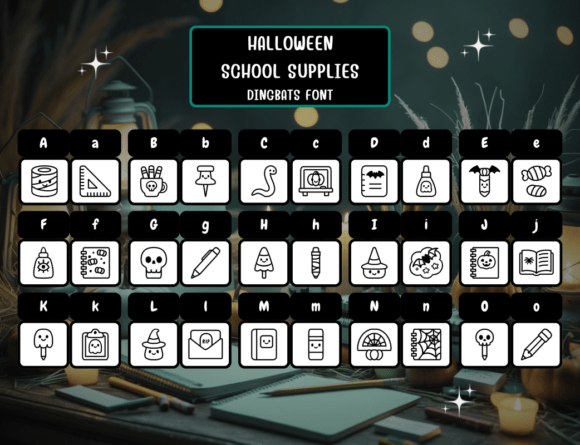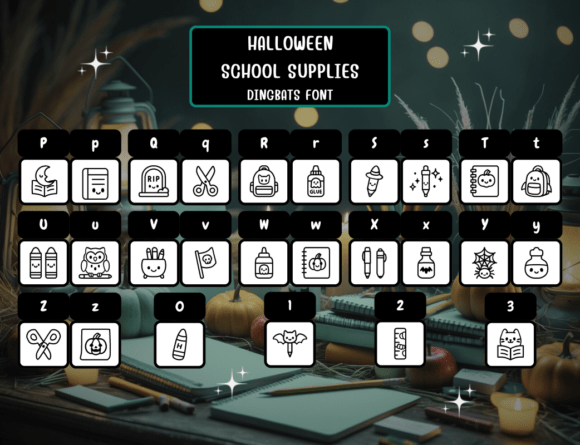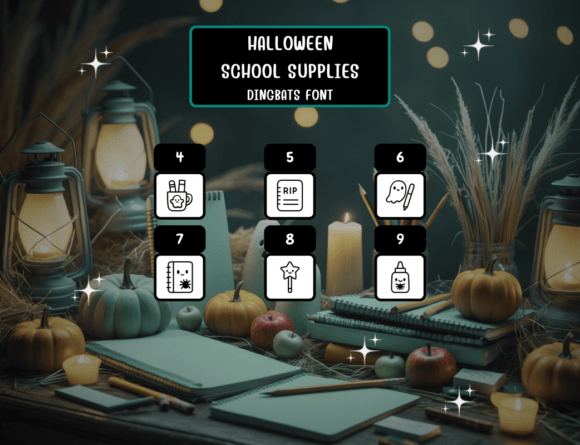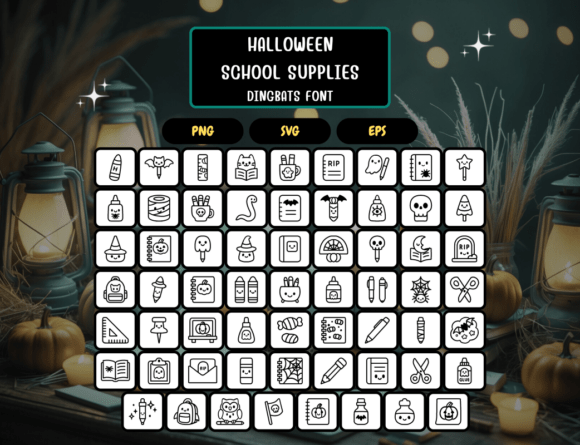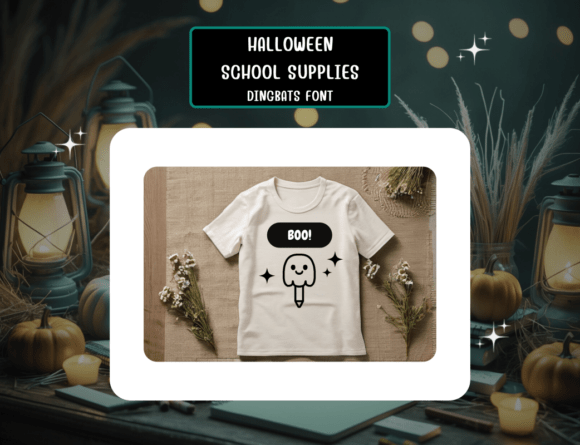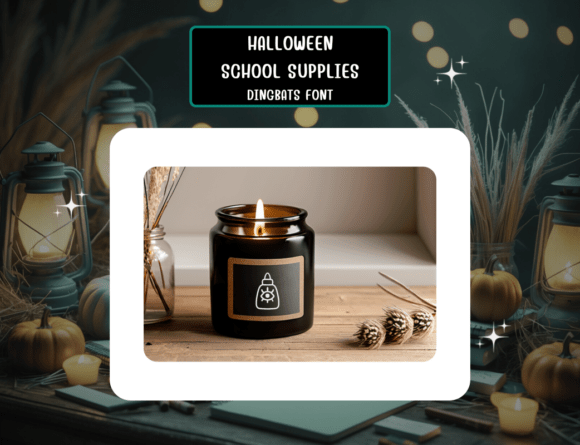
👻 Halloween School Supplies Dingbats Font 🎃: A Spooky and Whimsical Addition to Your Design Projects
Are you looking for a unique and creative way to add a touch of Halloween spirit to your design projects? Look no further than the Halloweenschoolsupplies Regular Font, a charming dingbats font that features a collection of hand-drawn Halloween school supplies illustrations. This font is perfect for designers, crafters, and educators who want to add a whimsical and spooky touch to their projects.
Key Features and Uses
The Halloweenschoolsupplies Regular Font includes a variety of iconic Halloween-themed school items, such as:
- A pumpkin notebook 📚
- A ghost clipboard 👻
- A bat glue bottle 🦇
- A spiderweb-covered book 🕷️
These playful illustrations are ideal for crafting labels, stickers, and greeting cards that stand out. They’re also perfect for educational materials and creative projects that need a warm, organic feel. With this font, you can easily create:
- Halloween-themed labels and stickers for school supplies and decorations
- Spooky and fun greeting cards for friends and family
- Educational materials, such as worksheets and activity sheets, that are both fun and engaging
- Creative projects, such as scrapbooking and mixed media art, that require a unique and whimsical touch
One of the best features of the Halloweenschoolsupplies Regular Font is its ease of use. Each letter on your keyboard corresponds to a unique doodle, making it incredibly easy to use for a wide range of applications. You can simply type on your keyboard and see the Halloween-themed illustrations appear.
The font is also highly customizable, allowing you to adjust the size, color, and style to fit your design needs. You can use the font to create a variety of effects, from subtle and sophisticated to bold and playful.
Perfect for Designers, Crafters, and Educators
The Halloweenschoolsupplies Regular Font is perfect for designers, crafters, and educators who want to add a unique and creative touch to their projects. Whether you’re creating:
- Halloween-themed party decorations and invitations
- Educational materials and activity sheets
- Creative projects, such as scrapbooking and mixed media art
This font is sure to inspire your creativity and help you create projects that are both fun and engaging.
In conclusion, the Halloweenschoolsupplies Regular Font is a unique and creative addition to any design project. With its collection of hand-drawn Halloween school supplies illustrations, ease of use, and compatibility with a range of design software, this font is perfect for designers, crafters, and educators who want to add a whimsical and spooky touch to their projects. So why wait? Get your copy of the Halloweenschoolsupplies Regular Font today and start creating!